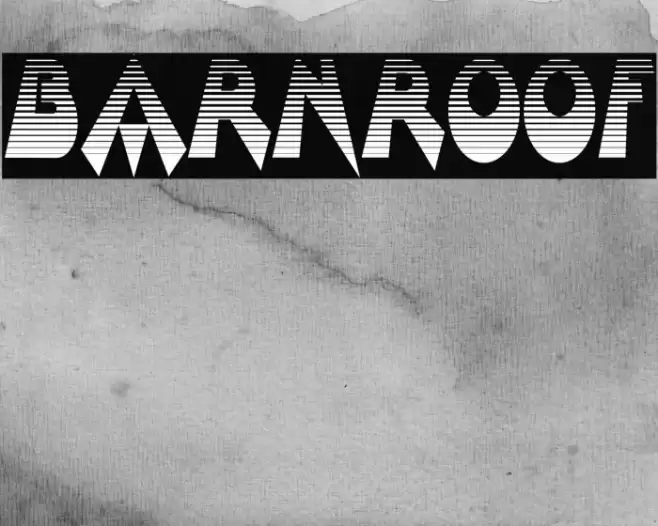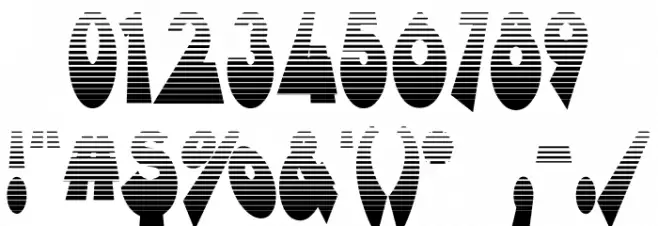
Barnroof Font
Barnroof Description
This font features a bold, geometric design with a distinctive striped pattern running horizontally across each character. The uppercase letters have a strong, angular appearance, while the lowercase letters maintain a consistent style. The numbers and special characters follow the same design principles, ensuring uniformity across all elements. The font's unique aesthetic makes it ideal for projects that require a modern and eye-catching look. Its boldness and decorative elements make it stand out, while the consistent line work adds a sense of cohesion and balance.
A bold, geometric font with horizontal stripes and angular shapes from Uncategorized fonts.
- Proposed Projects: Ideal for posters, logos, branding, and any design needing a modern, striking appearance.